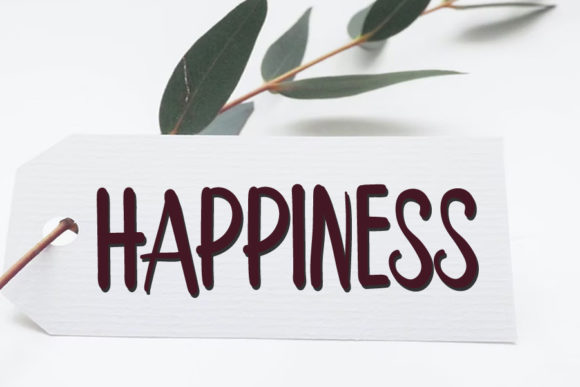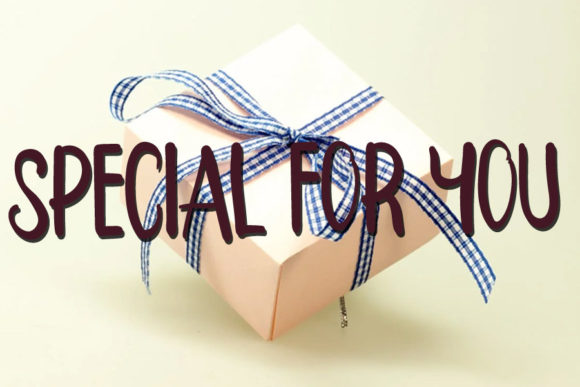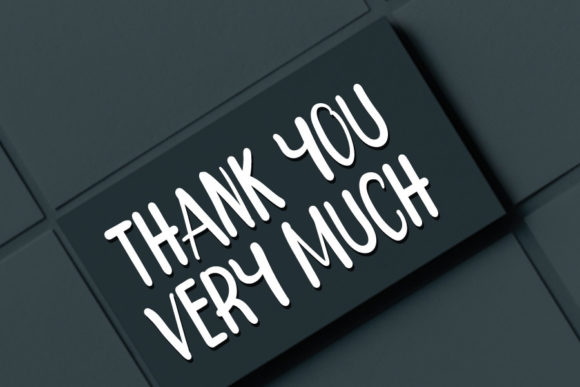
Introducing Happy Birthday Font: The Perfect Choice for Casual Designs
Are you looking for a font that can add a personal touch to your designs? Do you want to create a relaxed and informal vibe in your projects? Look no further than Happy Birthday Font, a clean and casual handwritten font that’s perfect for various design ideas.
What is Happy Birthday Font?
Happy Birthday Font is a beautiful, handcrafted font that’s designed to bring a smile to your face. It’s a clean and casual handwritten font that works well for a wide range of design projects, from birthday cards and party invitations to blog posts and social media graphics.
Key Features of Happy Birthday Font
• Clean and Casual Design: Happy Birthday Font features a clean and casual design that’s perfect for creating a relaxed and informal vibe in your designs.
• Handwritten Style: This font has a beautiful handwritten style that’s perfect for adding a personal touch to your projects.
• Easy to Read: Happy Birthday Font is easy to read, making it perfect for use in body text, headings, and titles.
• Versatile: This font works well for a wide range of design projects, from digital designs to print materials.
Why Choose Happy Birthday Font?
There are many reasons why Happy Birthday Font is a great choice for designers and crafters. Here are a few:
• Unique and Creative: Happy Birthday Font is a unique and creative font that can help your designs stand out from the crowd.
Design Ideas Using Happy Birthday Font
Happy Birthday Font is a versatile font that can be used for a wide range of design projects. Here are a few ideas to get you started:
• Birthday Cards: Use Happy Birthday Font to create personalized birthday cards for friends and family.
• Party Invitations: Create party invitations using Happy Birthday Font for a fun and casual look.
• Blog Posts: Use Happy Birthday Font to add a personal touch to your blog posts.
• Social Media Graphics: Create social media graphics using Happy Birthday Font to add a fun and casual vibe to your posts.
• Use it with Other Fonts: Happy Birthday Font works well with other fonts, so feel free to experiment with different font combinations.
• Adjust the Size and Color: Adjust the size and color of Happy Birthday Font to suit your design needs.
• Use it for Headings and Titles: Use Happy Birthday Font for headings and titles to add a personal touch to your designs.
Happy Birthday Font is a beautiful and versatile font that’s perfect for designers and crafters. Its clean and casual design makes it ideal for creating a relaxed and informal vibe in your designs. With its ease of use, compatibility with most design software, and affordability, Happy Birthday Font is a great choice for anyone looking to add a personal touch to their projects.